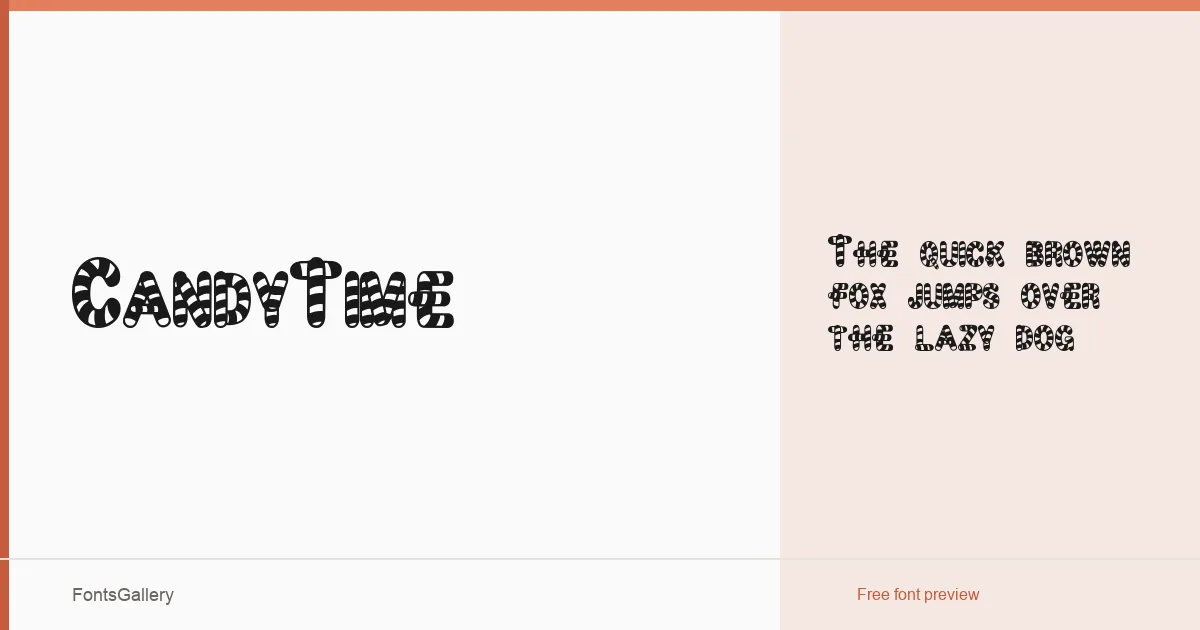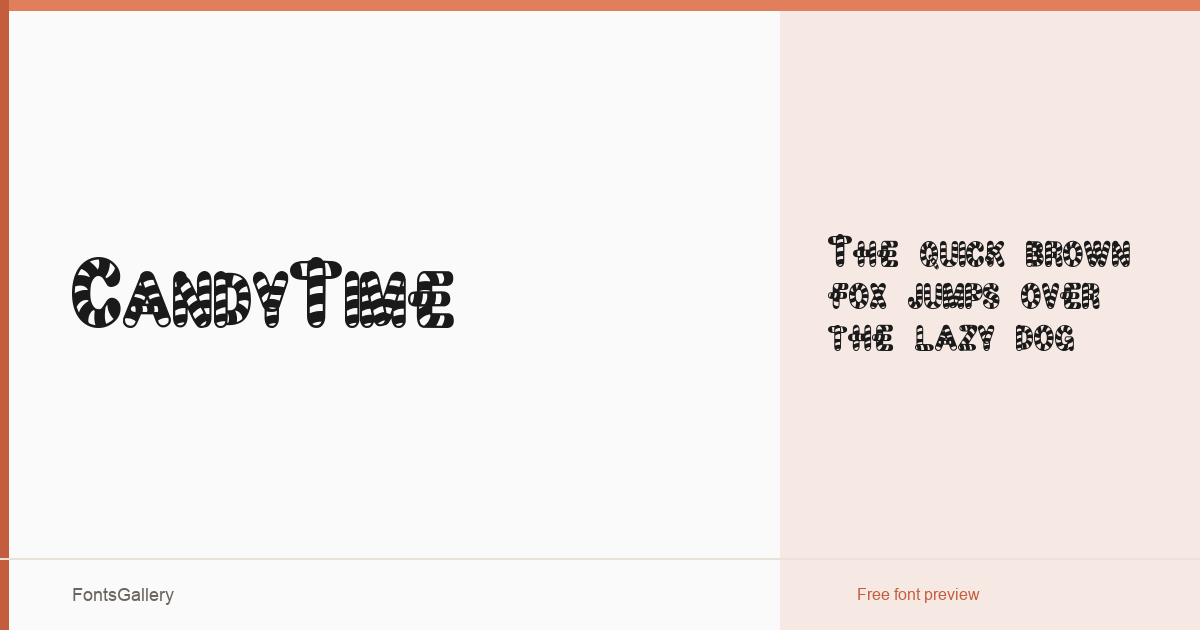
About CandyTime Font
CandyTime is a decorative typeface from House of Lime that brings a sense of playful charm and whimsical nostalgia to any creative project. Its decorative character makes it an eye-catching choice for designs that need personality and a touch of vintage flair. Whether you're working on a bold statement piece or a lighthearted layout, CandyTime delivers a distinctive and memorable presence.
CandyTime's letterforms are rooted in a decorative style that blends playful energy with vintage warmth and whimsical detail. Each character carries a lively, expressive quality that evokes a sense of fun and retro charm, making the typeface instantly engaging. The overall aesthetic feels festive and imaginative, perfectly suited to designs that embrace creativity and character.
CandyTime shines in expressive applications such as posters, packaging, greeting cards, T-shirt designs, and children's books, where its decorative personality can take center stage. It works beautifully as a display or headline font, bringing visual energy to any layout that calls for a bold, characterful touch. For a balanced composition, consider pairing CandyTime with the clean neutrality of Helvetica or the complementary style of Aresink.